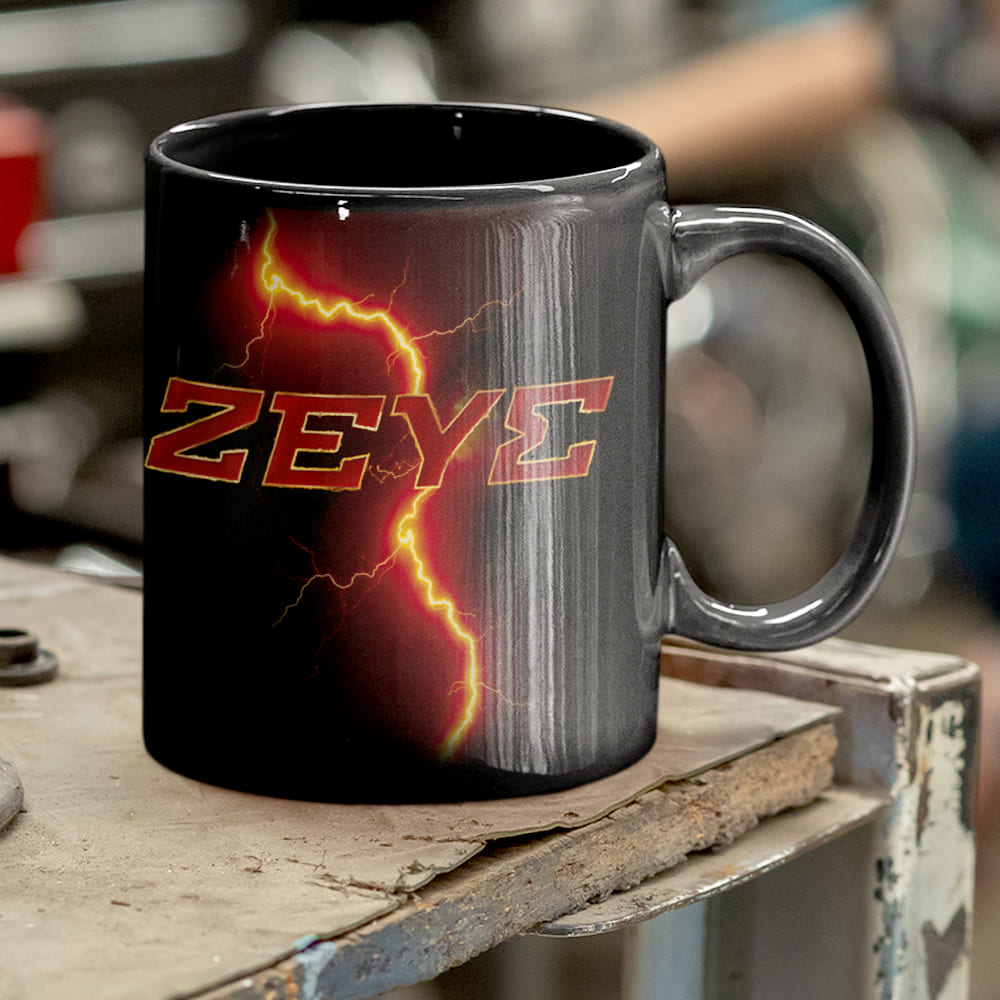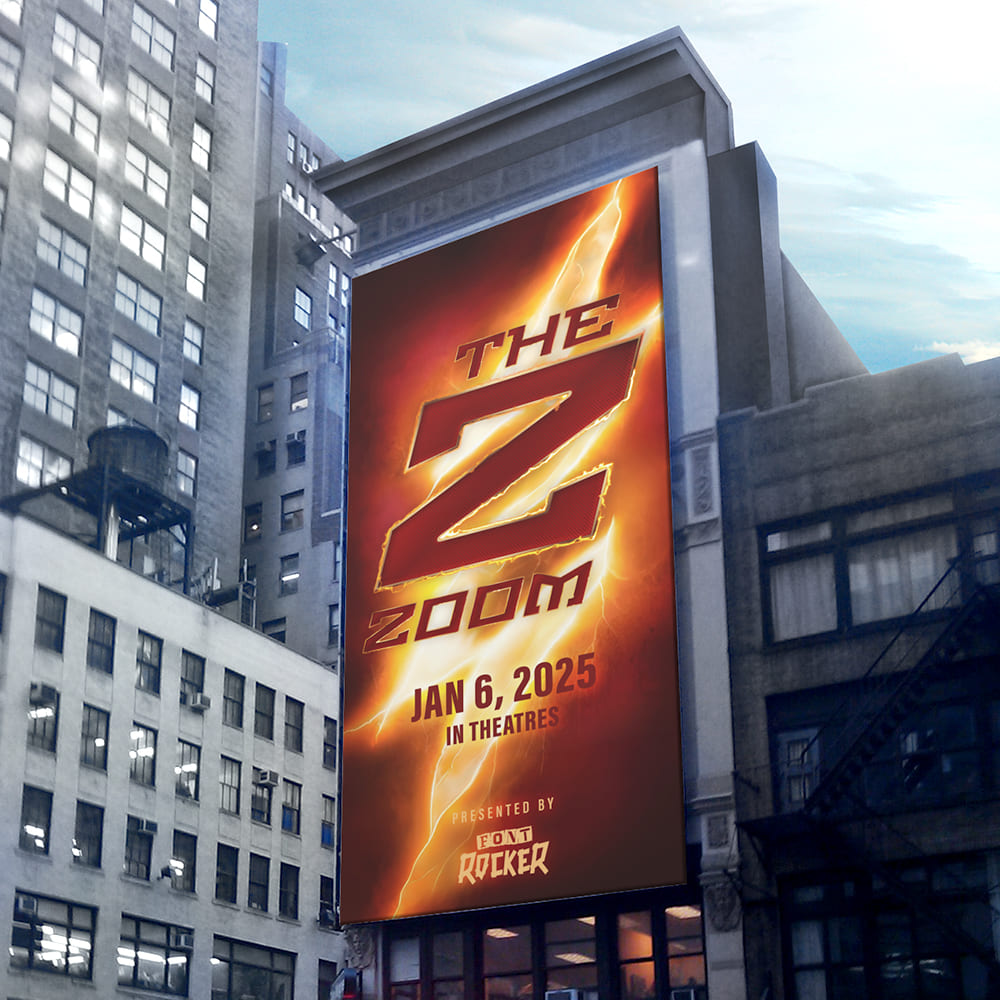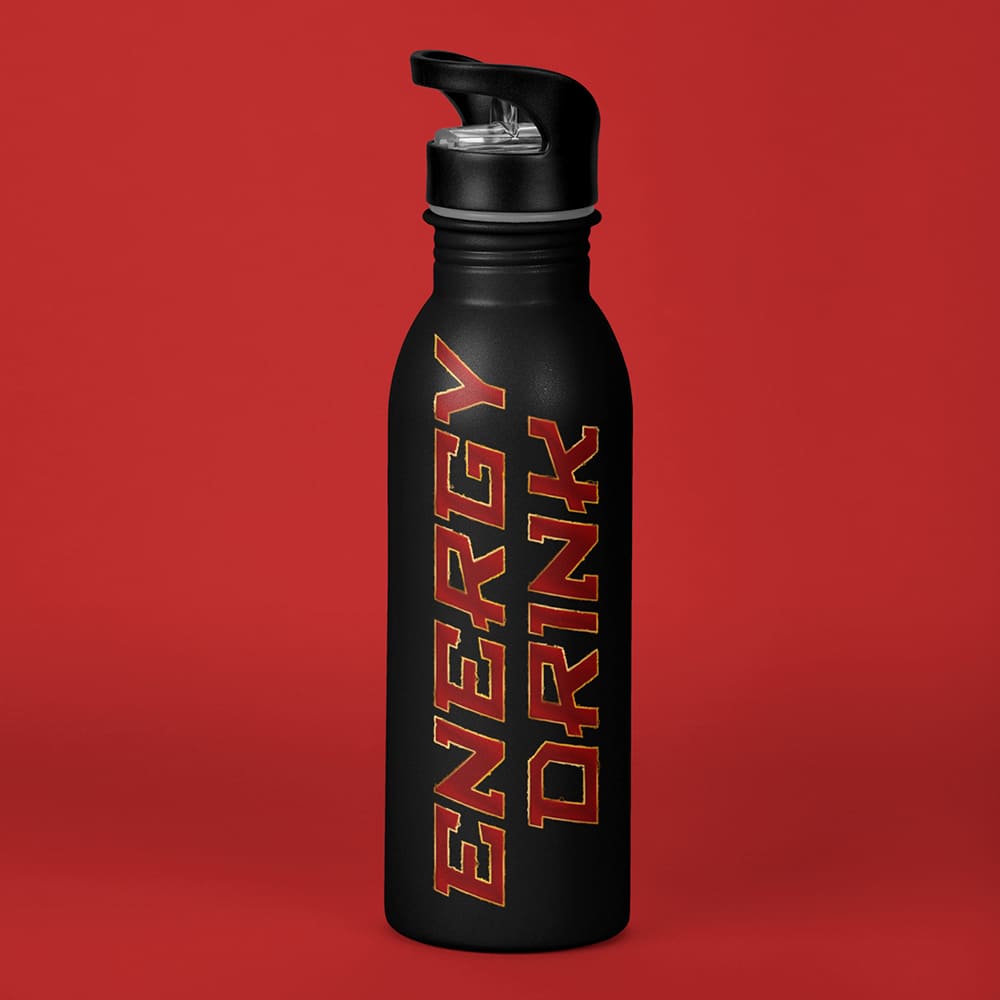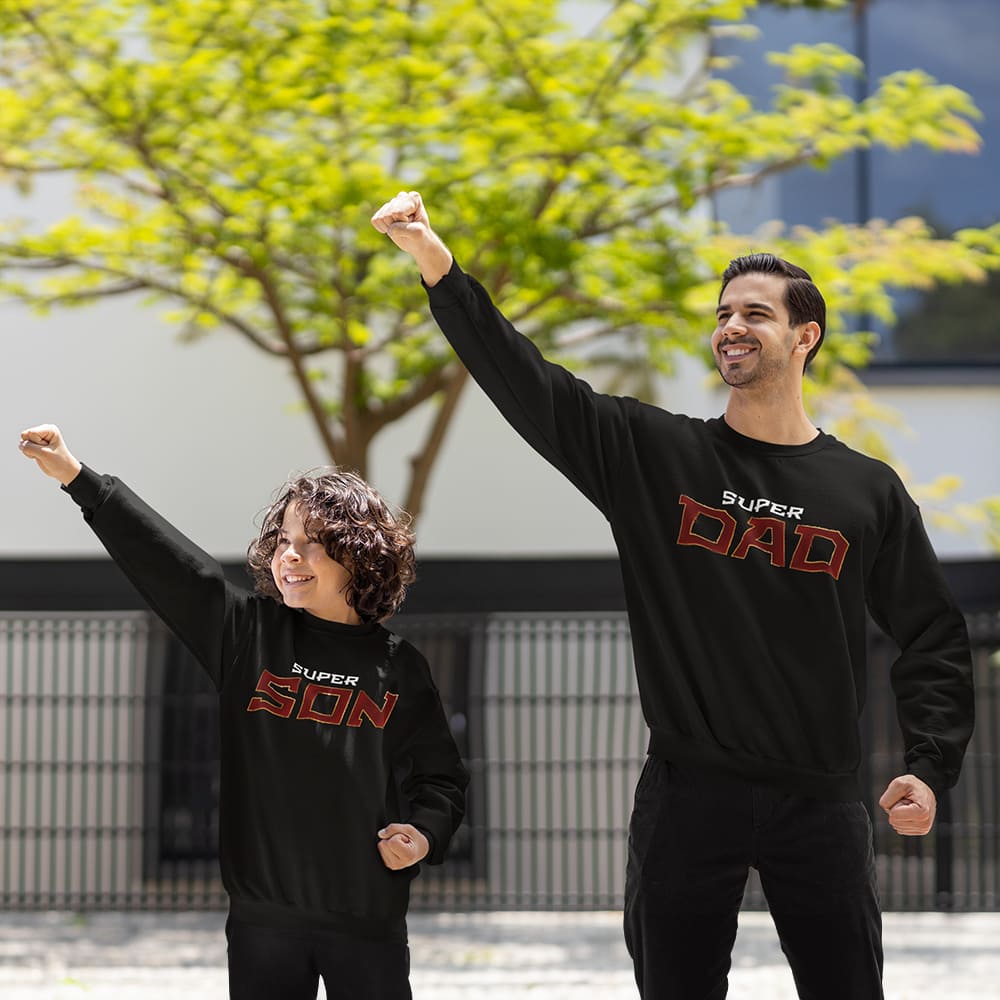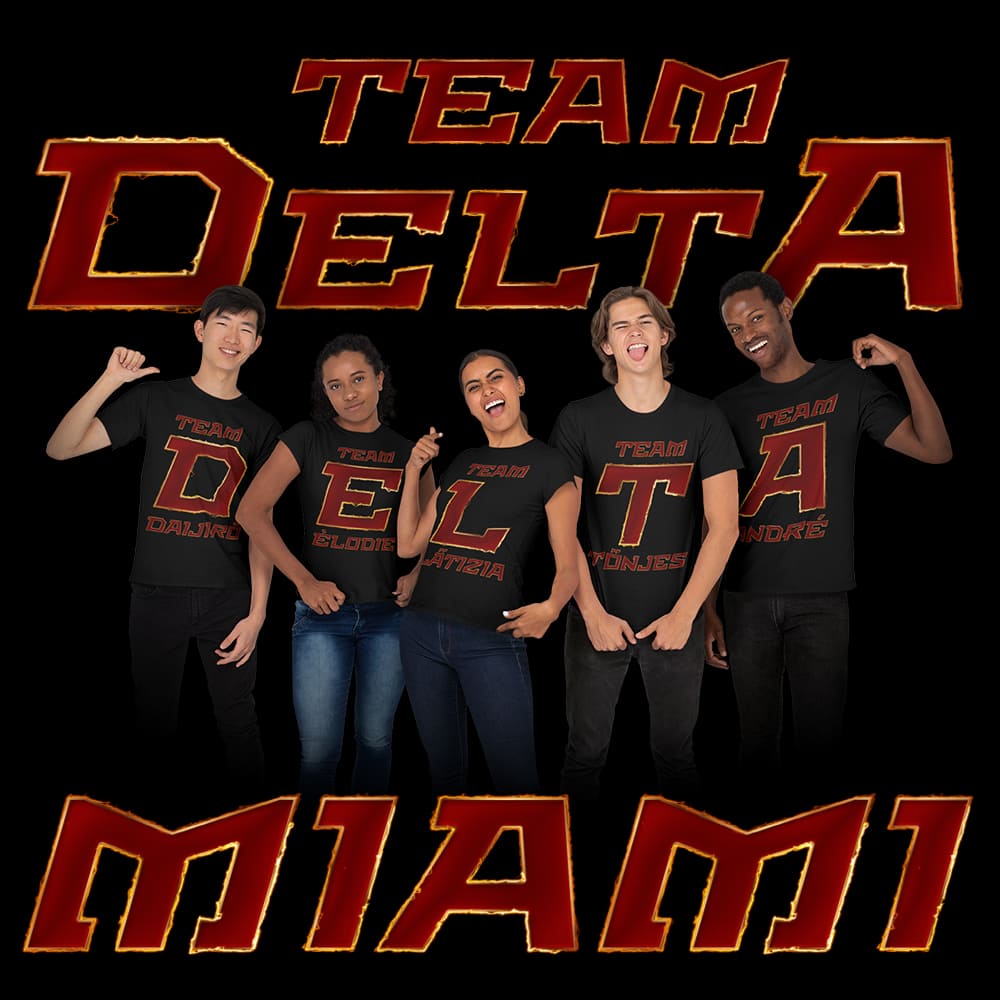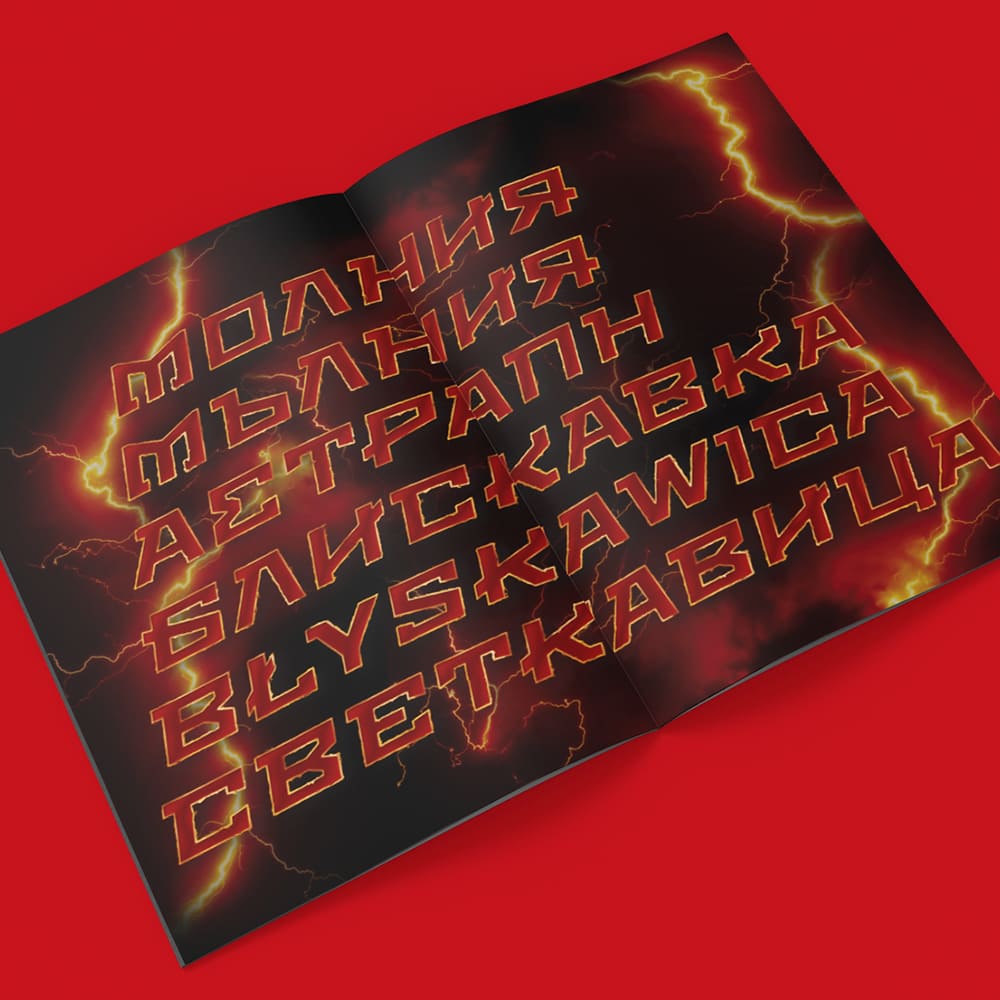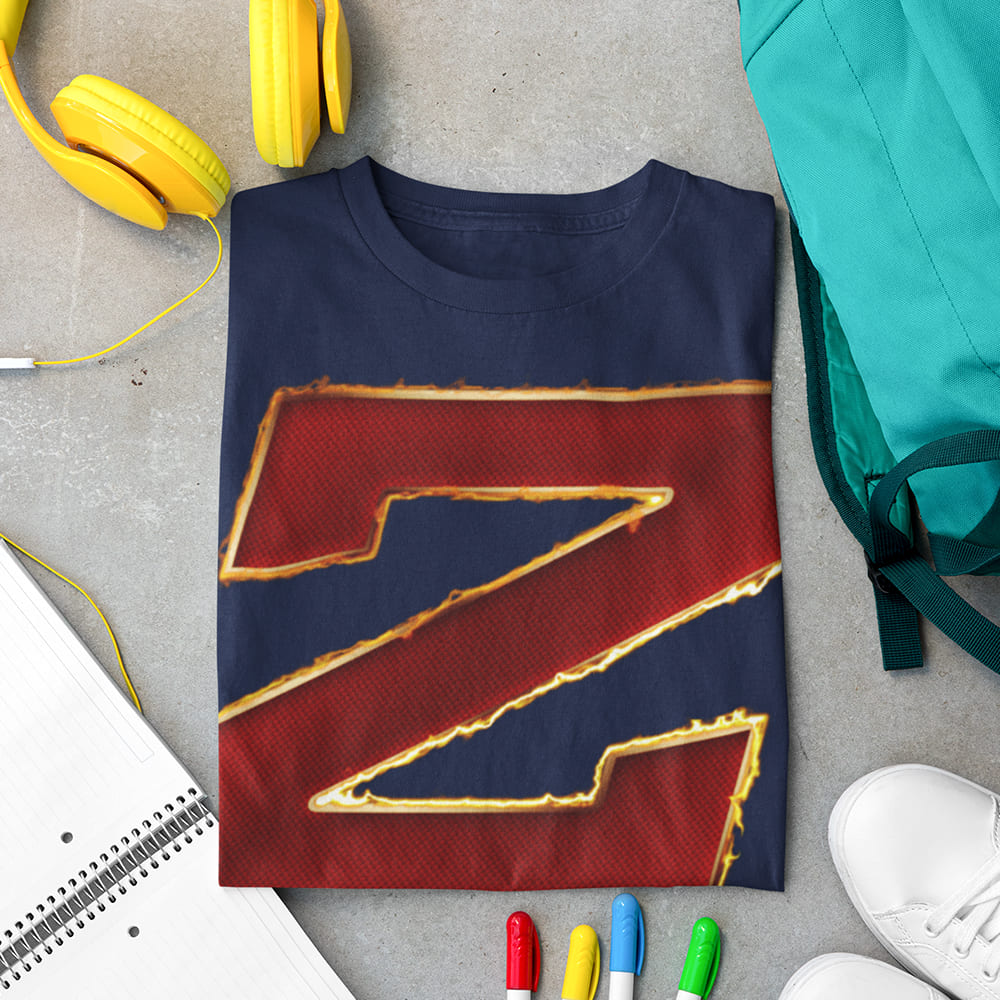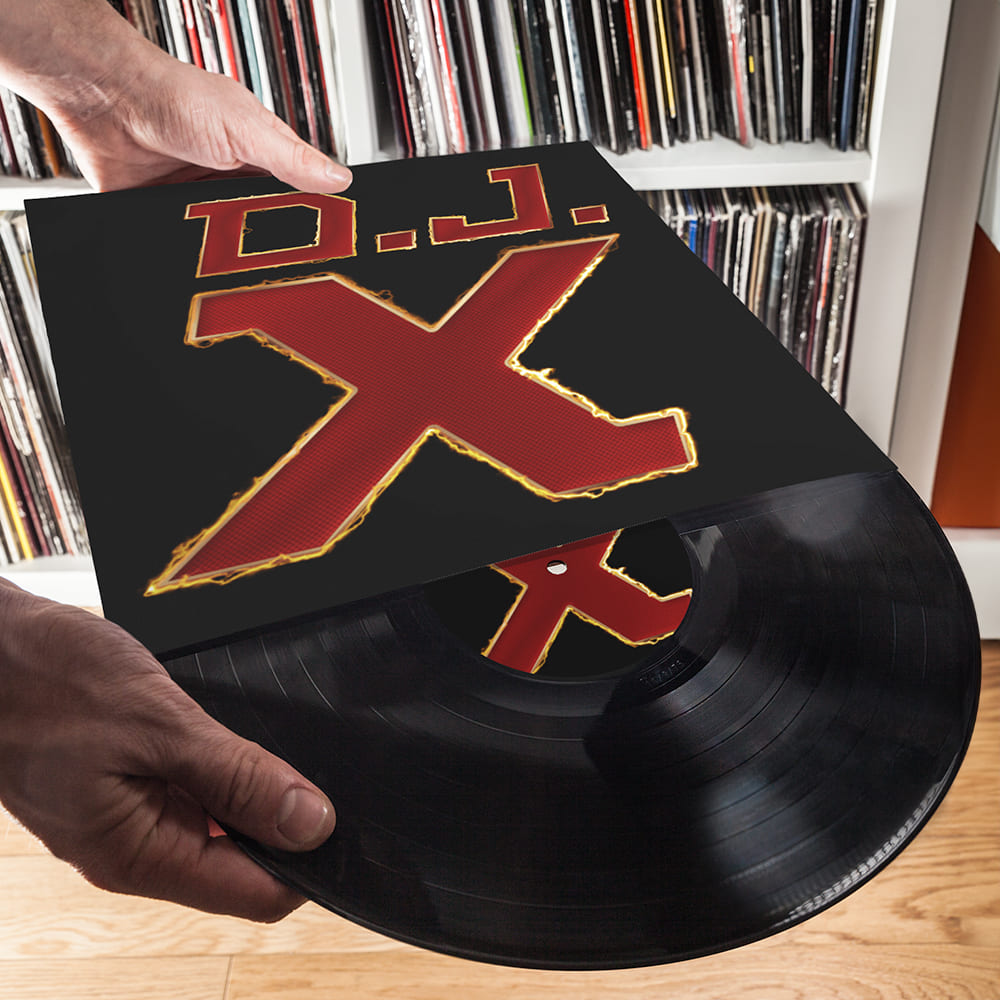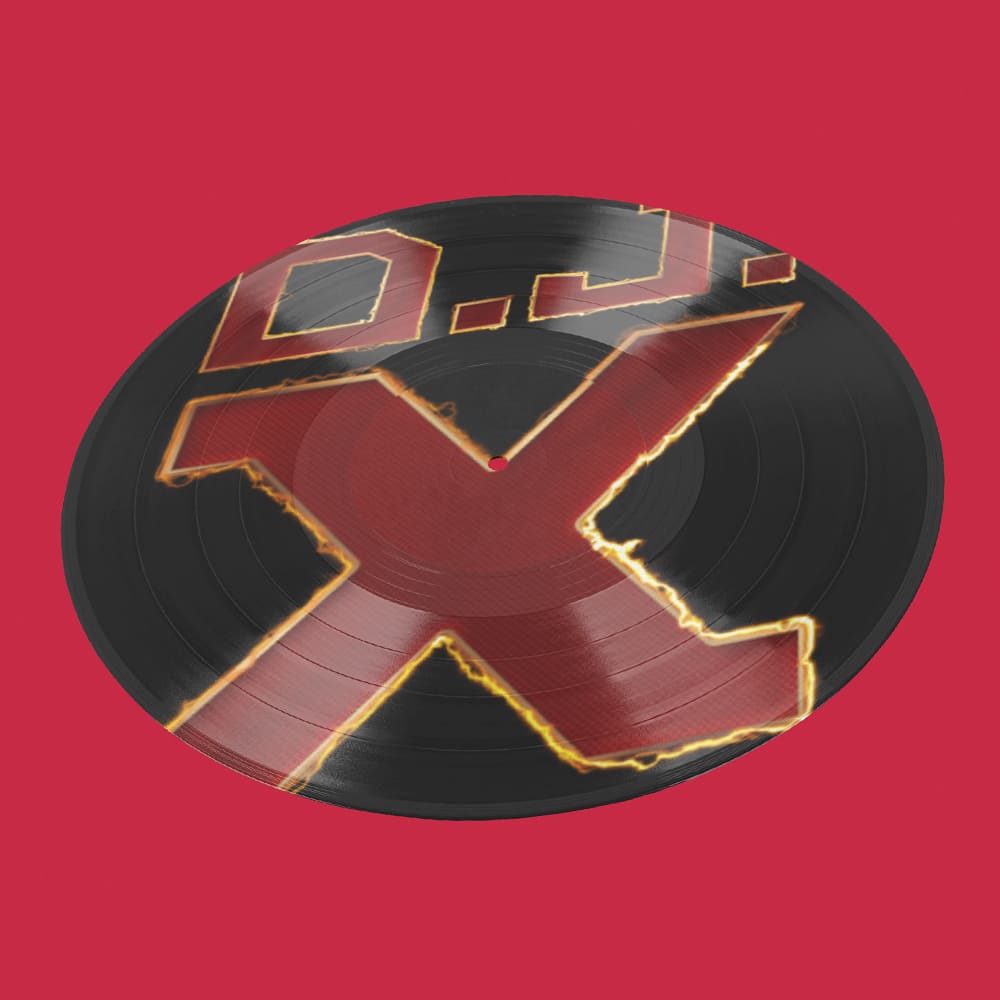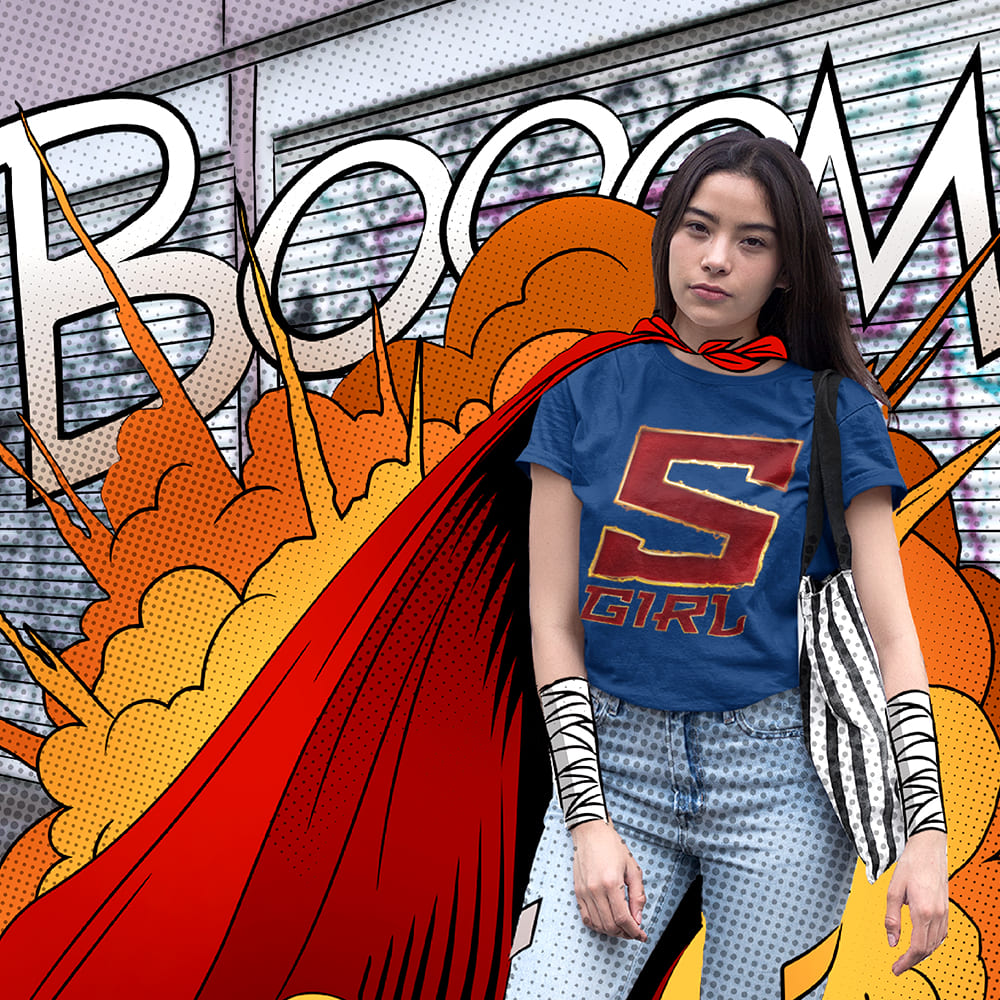
The Lightning Font
Fast, Electrifying, Legendary β‘ππ¨π
When pure speed meets raw energy, something unique is born β just like Barry Allen, the fastest man alive! Inspired by the power of lightning and the speed of light, the The Lightning Font brings this energy and motion straight into your design. Perfect for anyone who loves speed, power, and electrifying intensity!
Why Choose The Lightning Font?
πΉ Blazing-fast look β Every stroke of this font radiates speed, as if drawn by a lightning bolt.
πΉ Perfect for power statements β Whether for comics, gaming, sports designs, or social media, this font injects pure energy into your visuals.
πΉ Electrifying dynamics β Inspired by the iconic race through time, this font gives your design an unstoppable, lightning-charged force.
Make your design faster, stronger, and unstoppable! This font is for those who love speed, action, and electric energy.